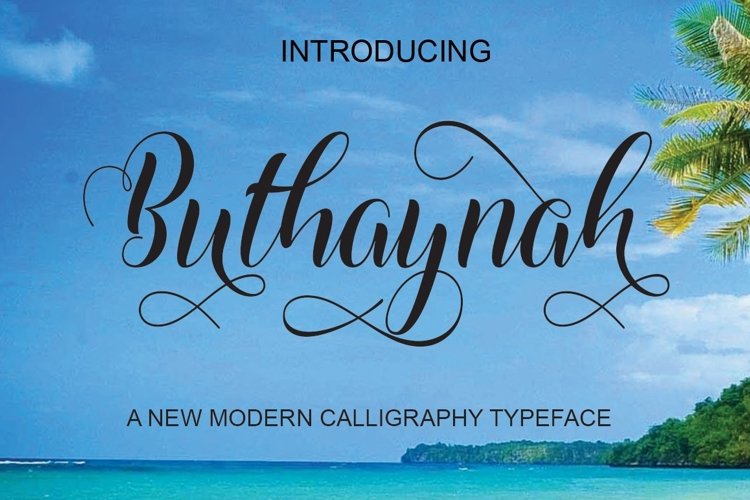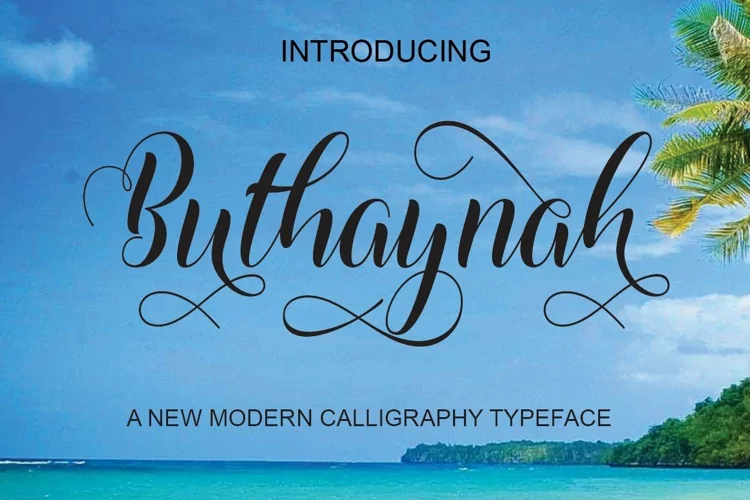
Buthaynah Modern Calligraphy. This font was designed by handwriting, and it has a modern and unique forms of calligraphy, the writing style is very natural.The Features of this fonts is;